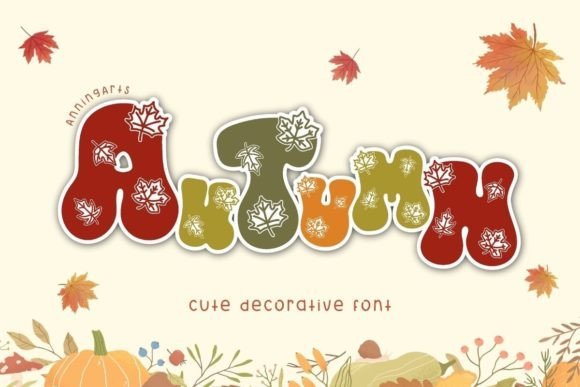
Getting Cozy with Autumn’s Charm
As a designer, have you ever felt a spark of inspiration while walking through a crisp autumn forest, surrounded by the vibrant hues of changing leaves? The smell of woodsmoke and damp earth fills the air, and you can’t help but feel a creative urge to capture the essence of this magical season. It’s moments like these that inspire us to create something truly special.
Enter Autumn Font, a delightful typeface adorned with charming maple leaves in various colors. This beautiful font is perfect for projects that require a touch of nature and whimsy, such as invitation cards, poster designs, or product packaging that needs a boost of cheerfulness and cuteness. Whether you’re a seasoned designer or a budding artist, Autumn Font is a valuable addition to your toolkit, adding charm and making your text stand out with its unique and captivating style.
Autumn Font Key Features
- Font Family: Autumn is a unique, hand-drawn font family designed for use in digital and print applications.
- Unique Characteristics: Autumn features intricate, hand-drawn details and subtle texture, giving it a warm and organic feel.
Autumn Font Review
As a designer, I’ve had the chance to work with the Autumn Font, and I must say it’s a unique and captivating typeface. ✨ One of the things I love about Autumn is its elegant, handwritten feel, perfect for creating a warm and inviting atmosphere in any design project. The font’s fluid lines and subtle imperfections give it a sense of personality, making it stand out from more traditional sans-serif fonts.
Here are some of the Autumn Font’s key features:
- Elegant, handwritten feel
- Fluid lines and subtle imperfections
- Perfect for creating a warm and inviting atmosphere
- Unique and captivating typeface
While the Autumn Font is a great addition to any designer’s toolkit, there are a few limitations to consider: ⚠️ It’s not ideal for small text or body copy, as the font’s intricate details can be difficult to read at smaller sizes. Additionally, the font’s unique style may not be suitable for all design projects or brands.
Overall, I think the Autumn Font is a great choice for designers looking to add some personality and flair to their work. With its elegant feel and unique style, it’s perfect for creating invitations, social media graphics, or any other design project that requires a touch of sophistication and whimsy.
For maximum impact, use Autumn Font in conjunction with autumn-themed colors and imagery.
Combine Autumn Font with other design elements, such as leaves or pumpkins, to create a cohesive autumnal look.
Autumn Font is ideal for:
Invitations and party decorations
Seasonal marketing materials (e.g., flyers, brochures)
Personalized gifts and stationery
Seasonal social media graphics and posts